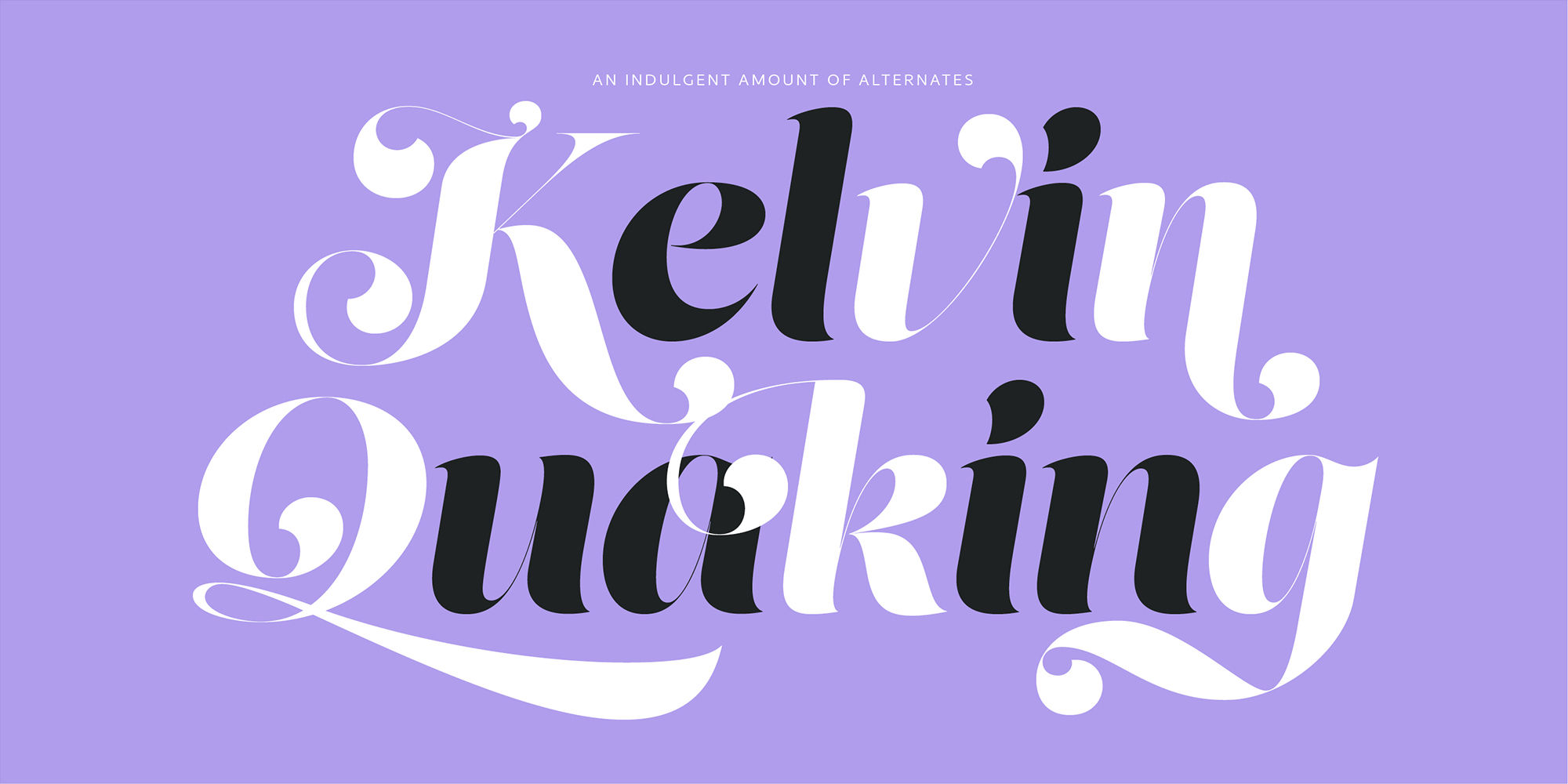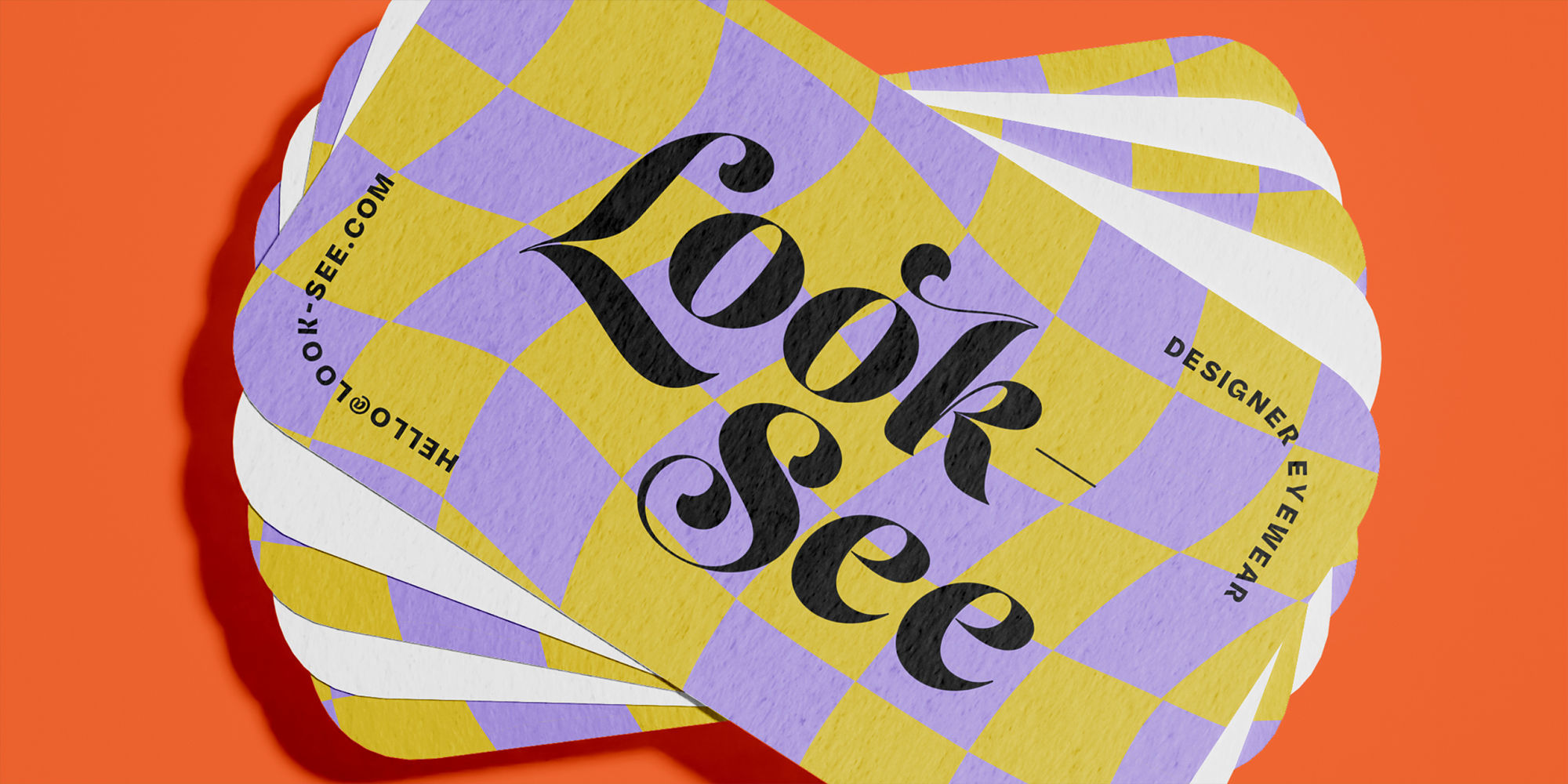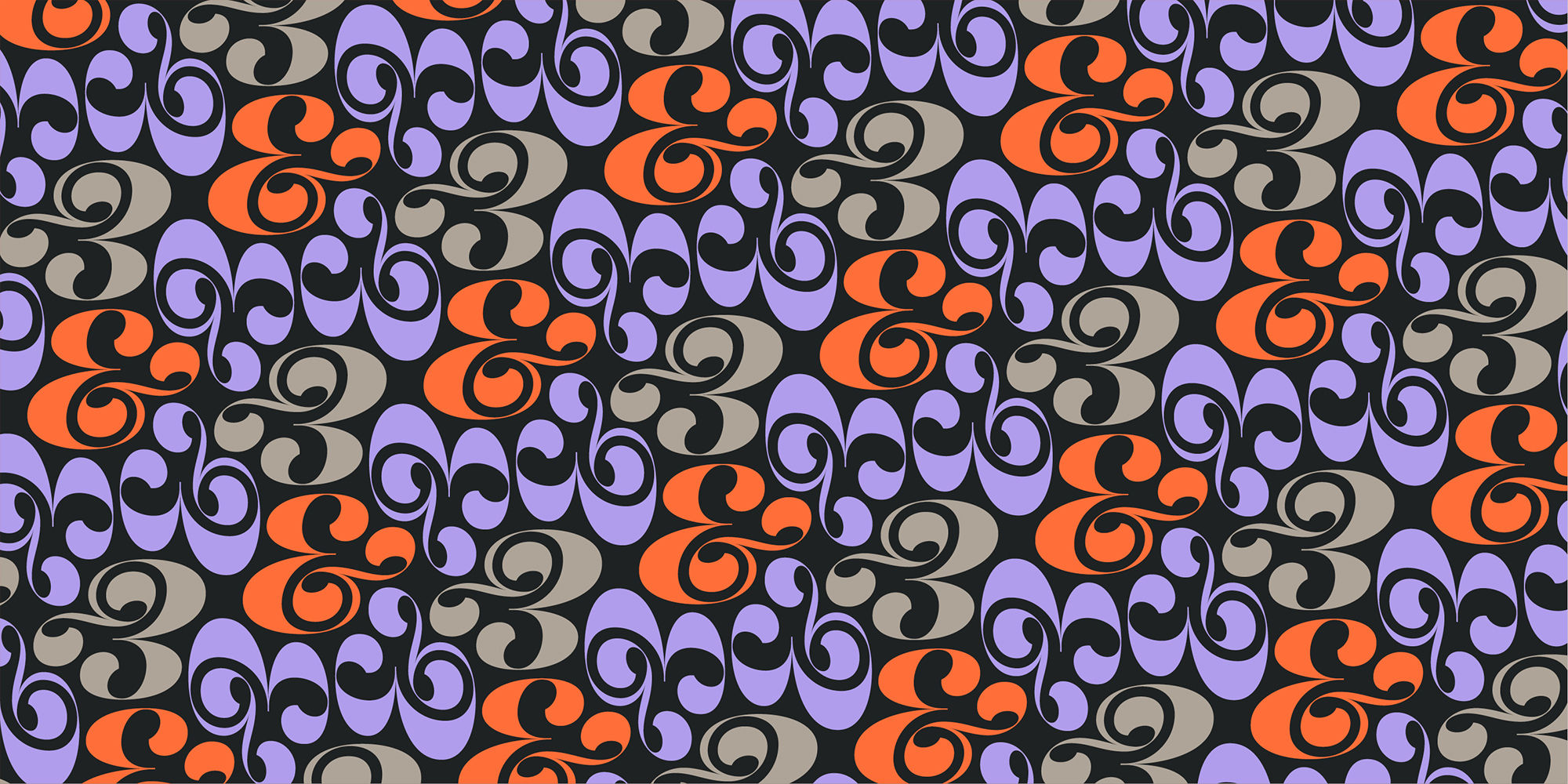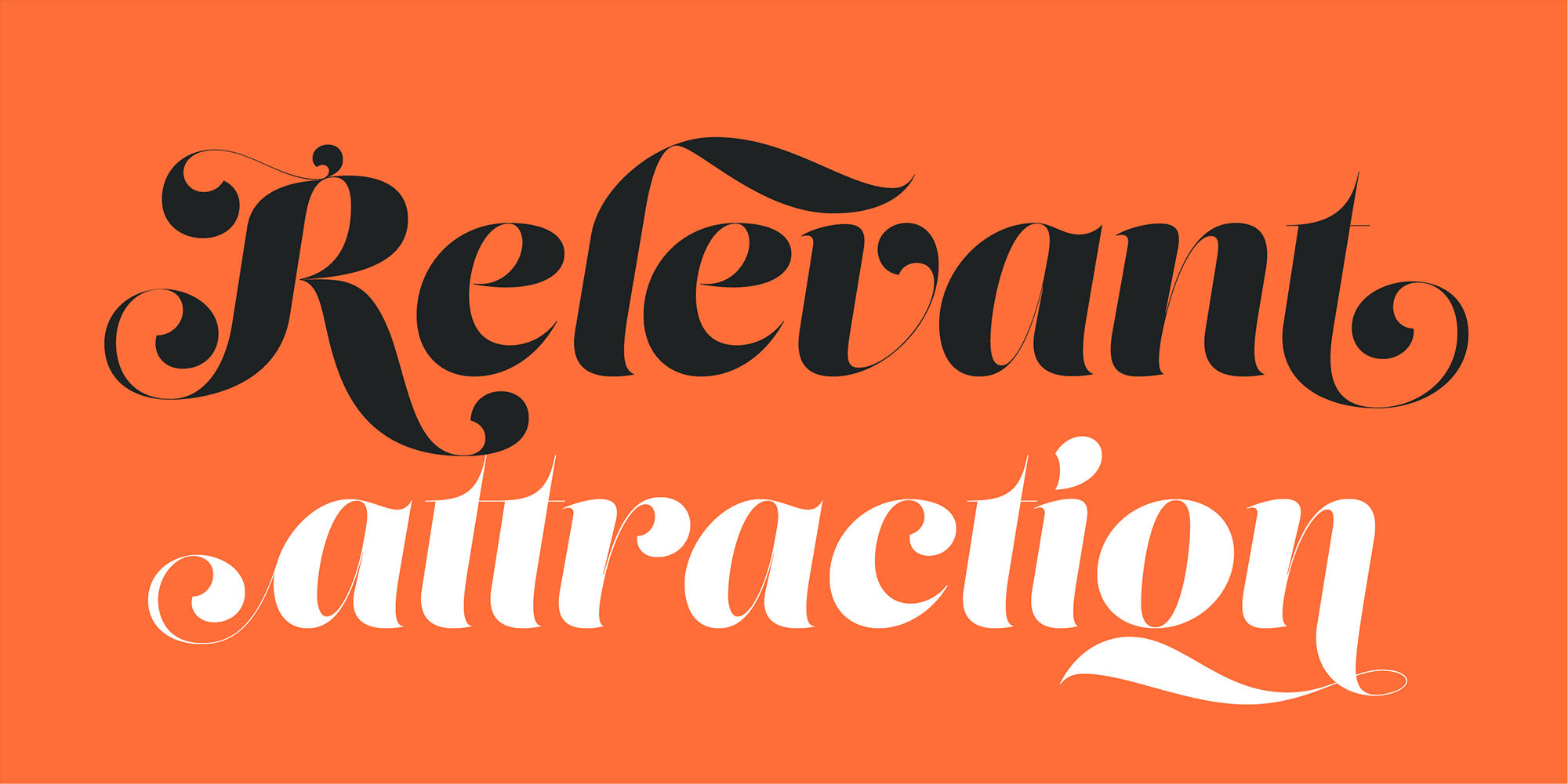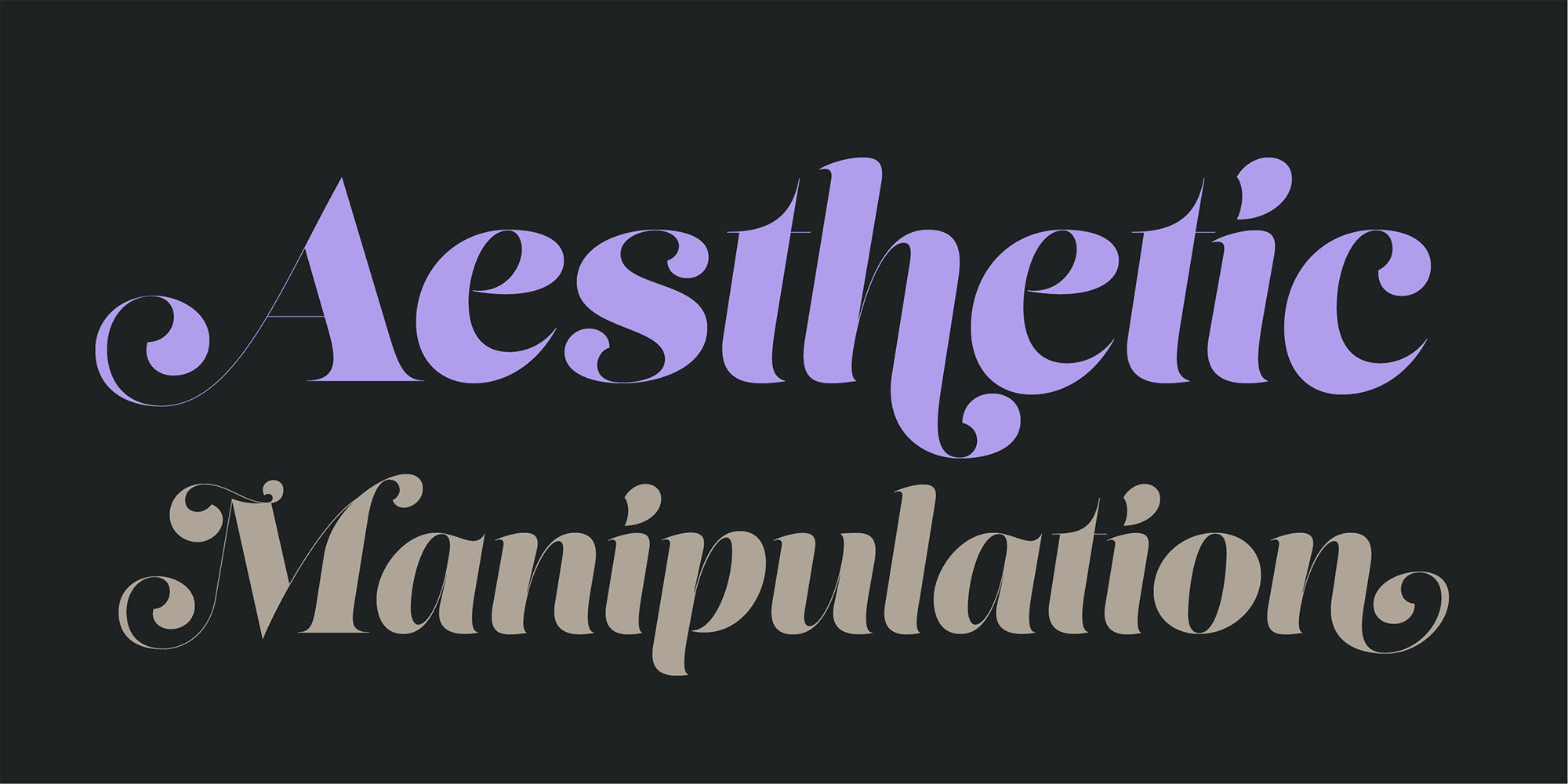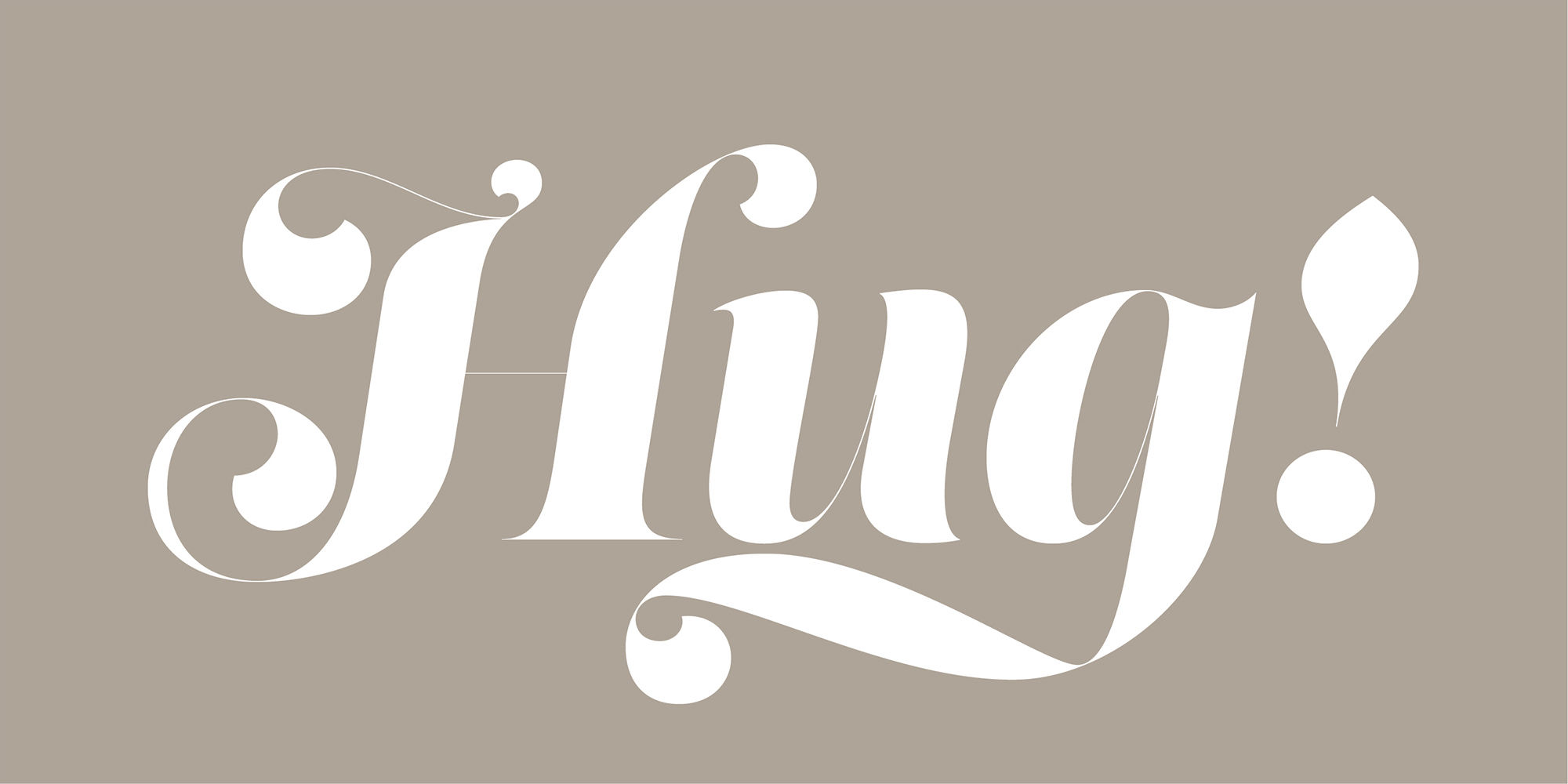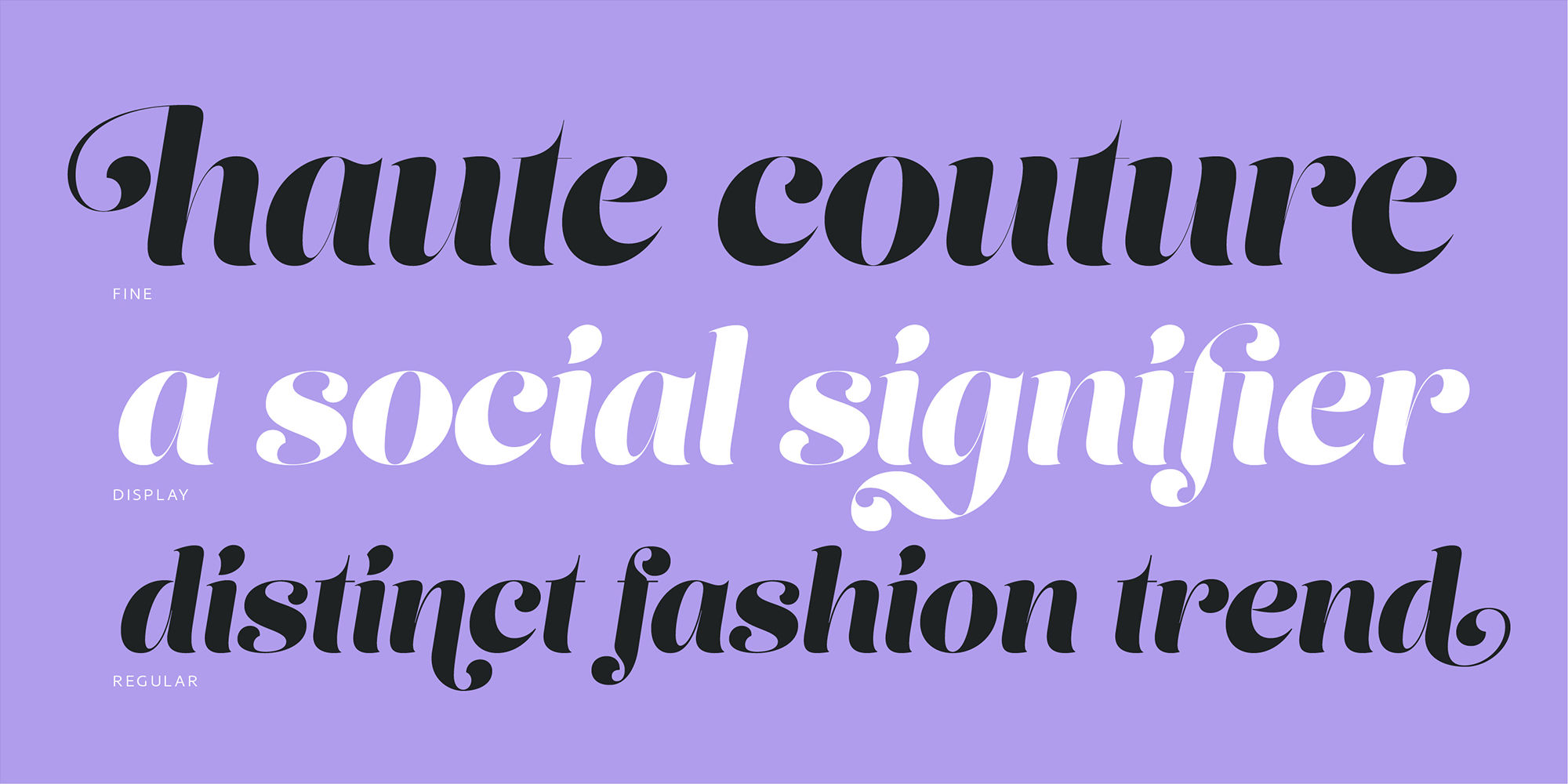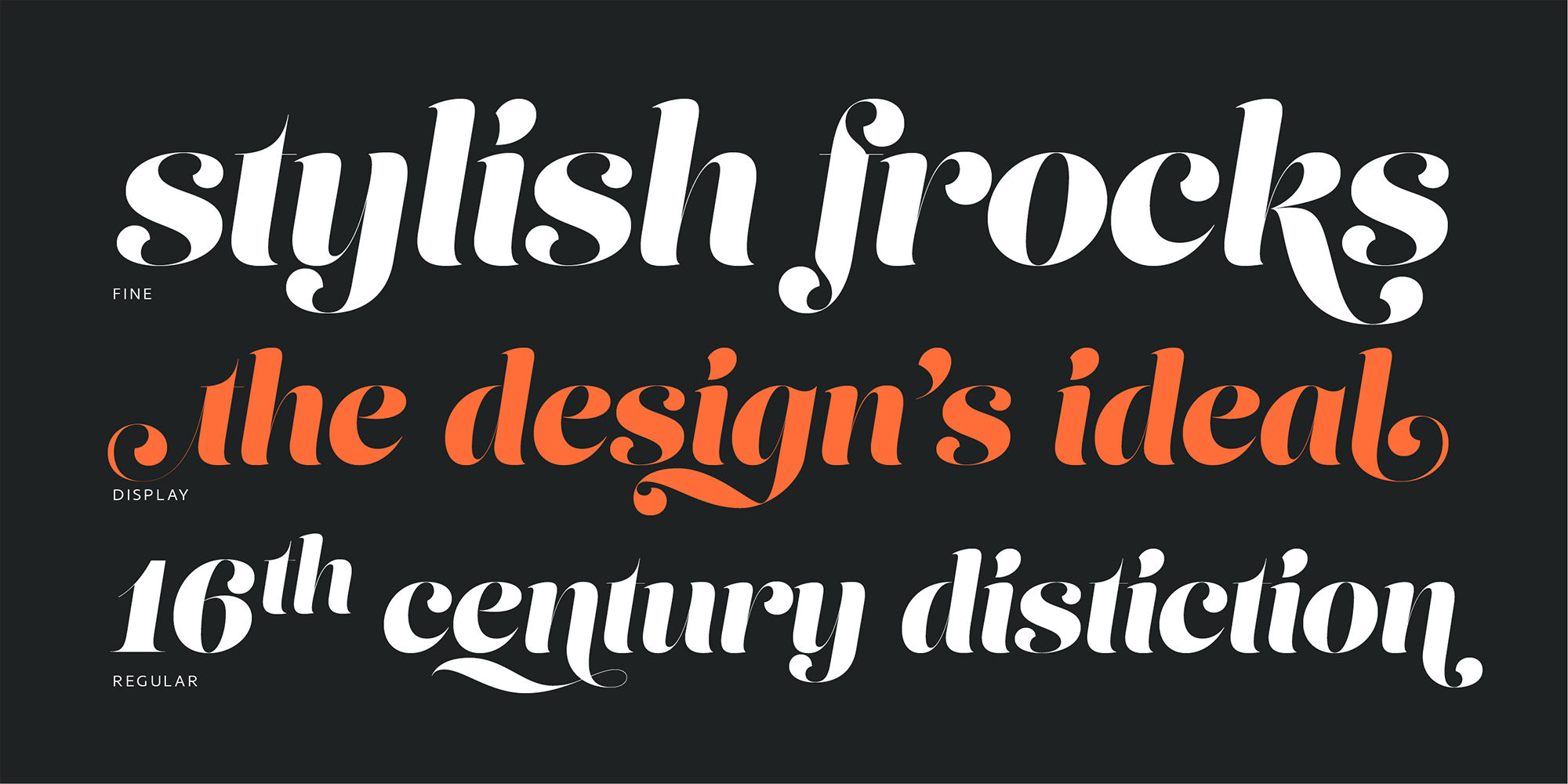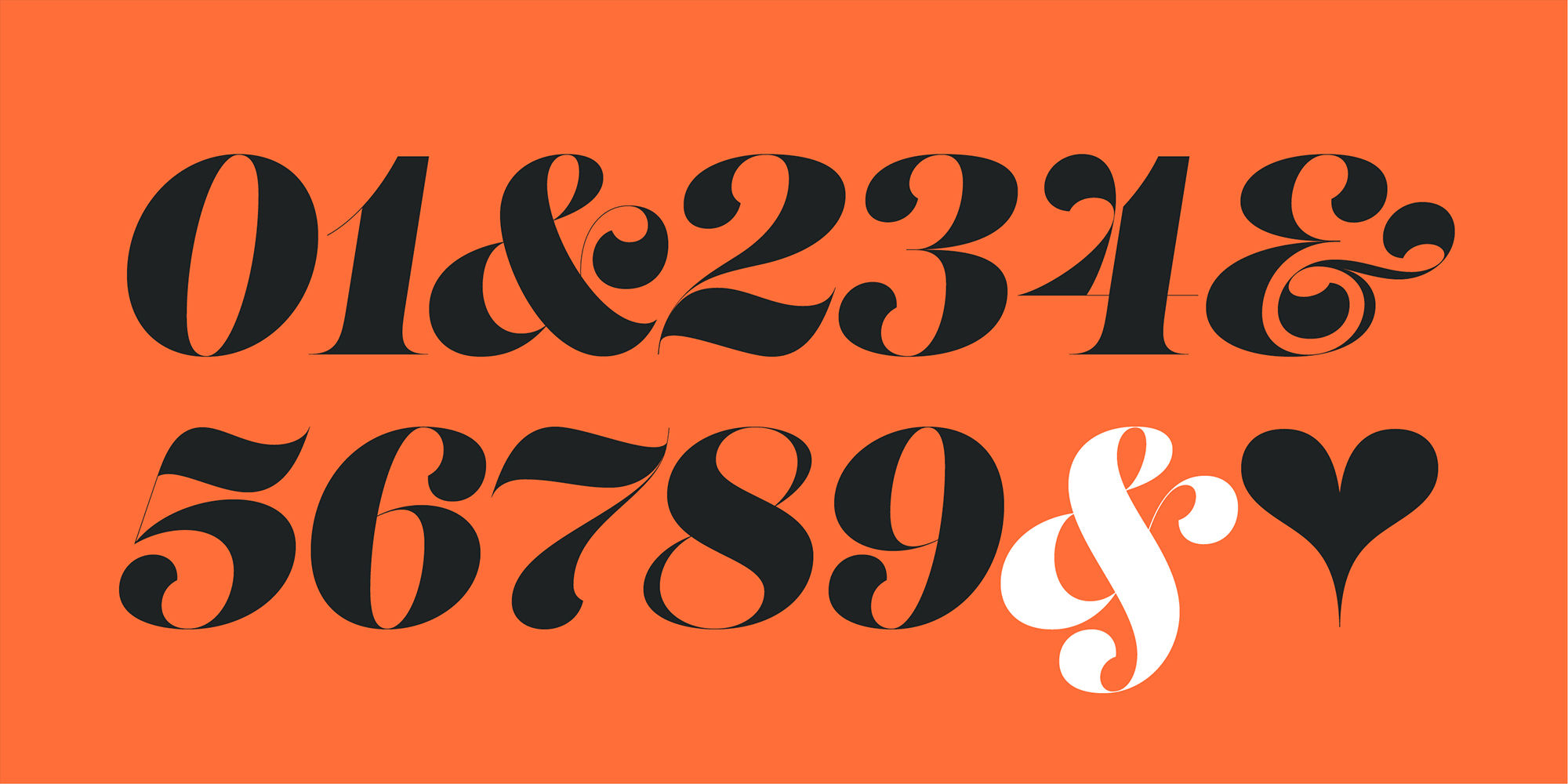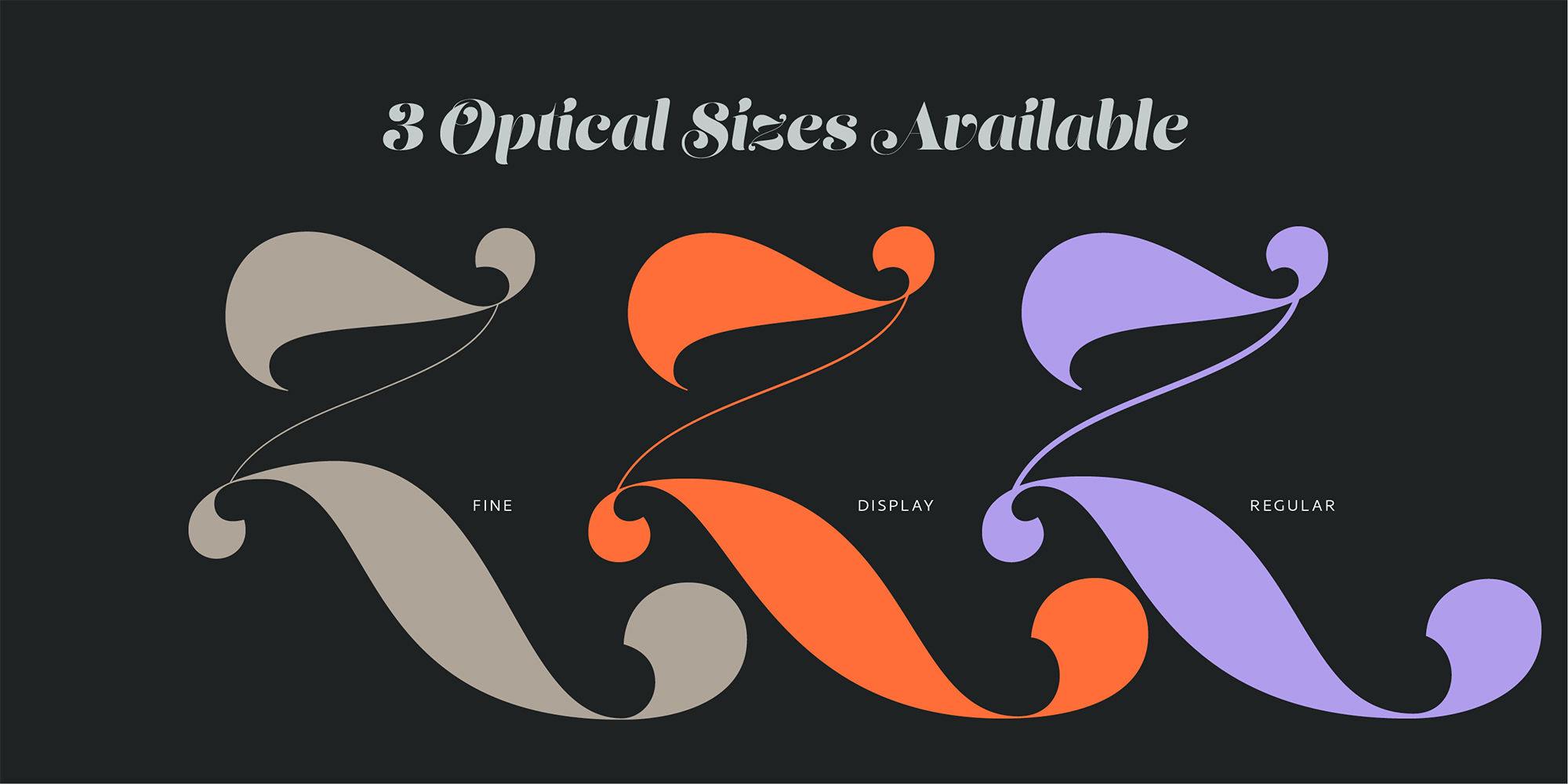
Lust Script
Boom. You asked for more, um, well just ‘more’—more swashes, more options, more weights, more of everything. I cannot give you more weights. The design just won’t allow it and anything else would be a compromise or a bastardization of the exemplars just to make money that I am unwilling to do. But, I did give you an overly indulgent, 90% cacao bar and espresso, Lust Script Fine. The ending strokes on these glyphs will literally draw blood. Enjoy it as much as I have.
The Lust Collection is the culmination of 5 years of exploration and development, and I am very excited to share it with everyone. When the original Lust was first conceived in 2010 and released a year and half later, I had planned for a Script and a Sans to accompany it. The Script was released about a year later, but I paused the Sans. The primary reason was the amount of feedback and requests I was receiving for alternate versions, expansions, and ‘hey, have you considered making?’ and so on. I listen to my customers and what they are needing… and besides, I was stalling with the Sans. Like Optima and other earlier high-contrast sans, they are difficult to deliver responsibly without suffering from ill-conceived excess or timidity. The new Lust Collection aggregates all of that past customer feedback and distills it into 6 separate families, each adhering to the original Lust precept of exercises in indulgence and each based in large part on the original 2010 exemplars produced for Lust. I just hate that it took so long to deliver, but better right, than rushed, I imagine.